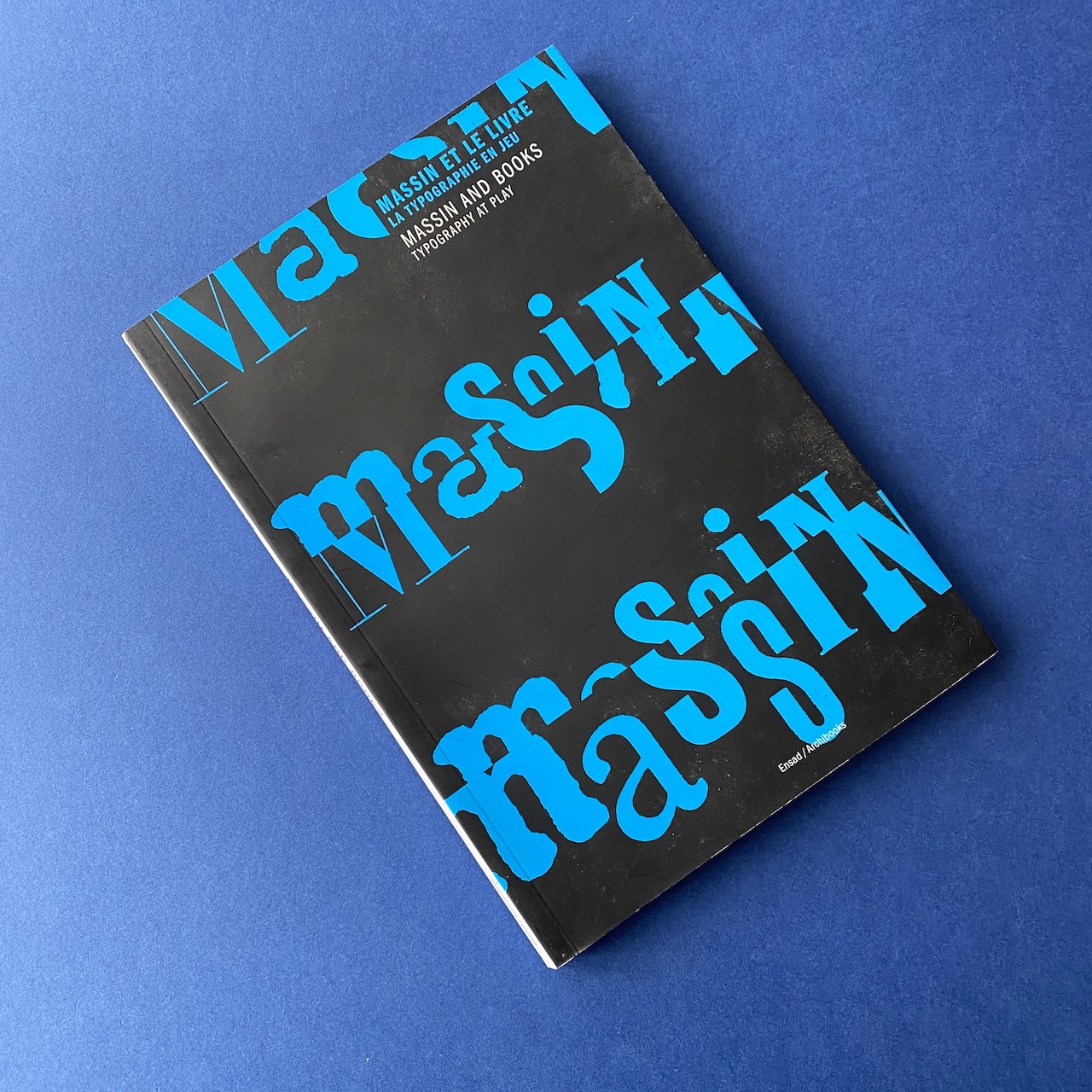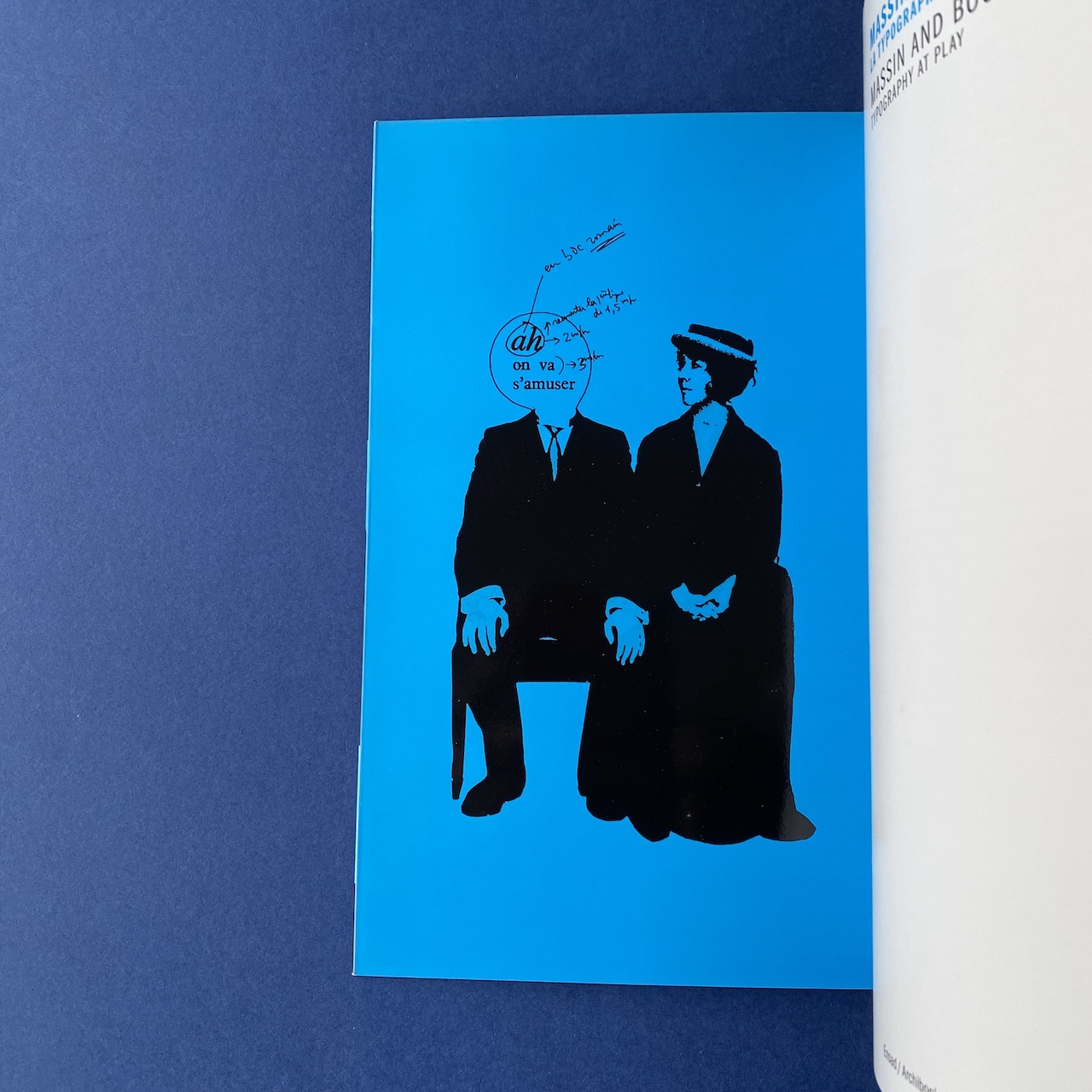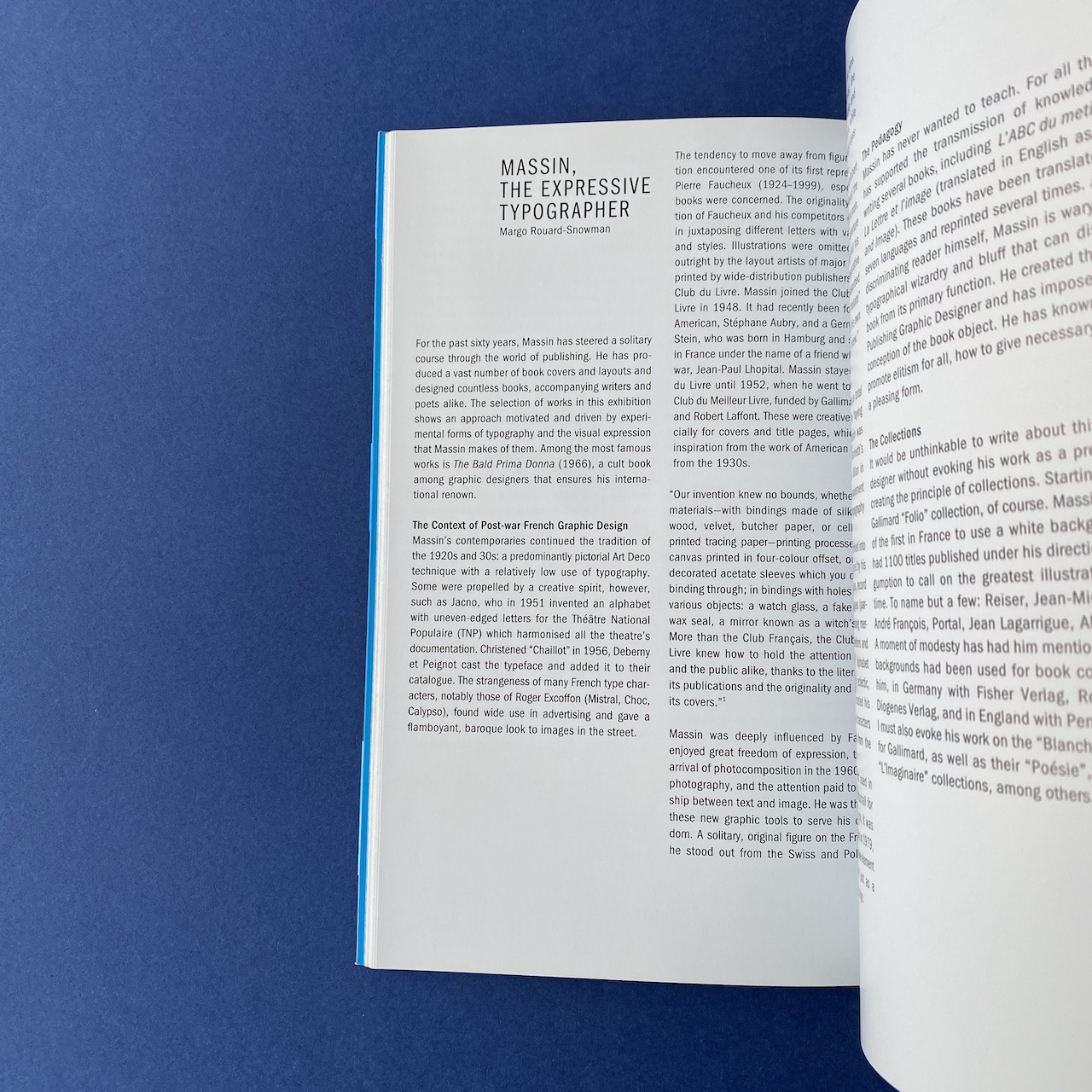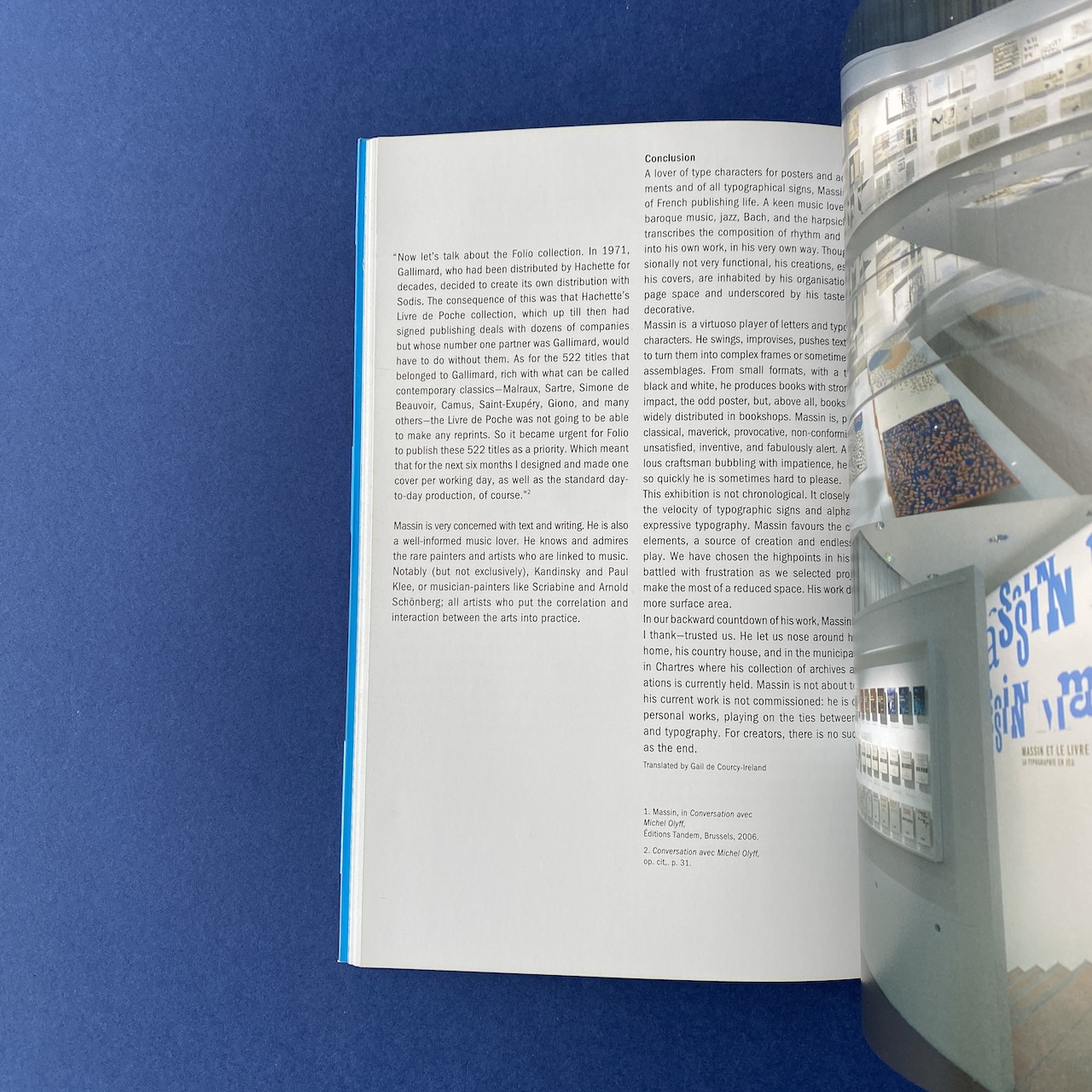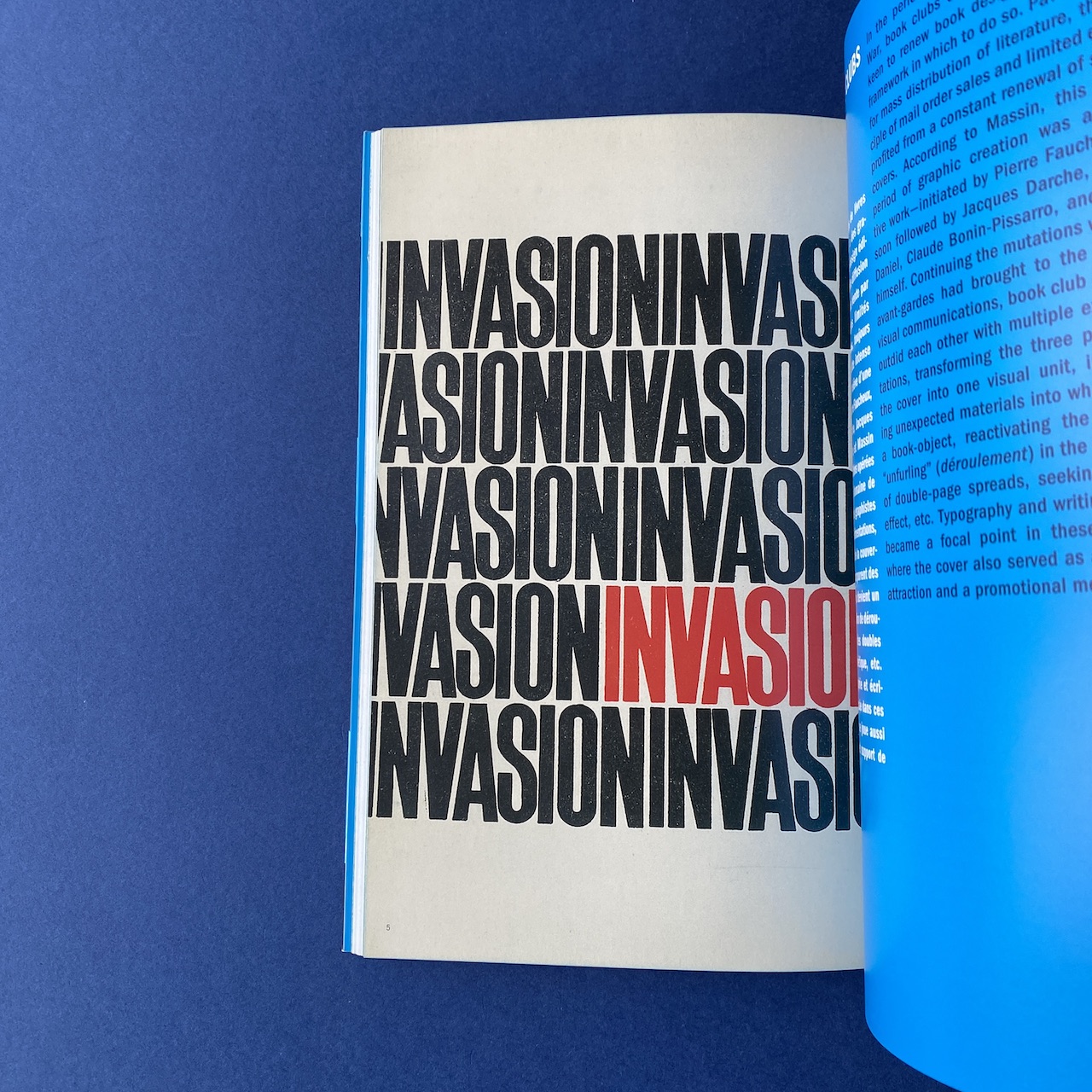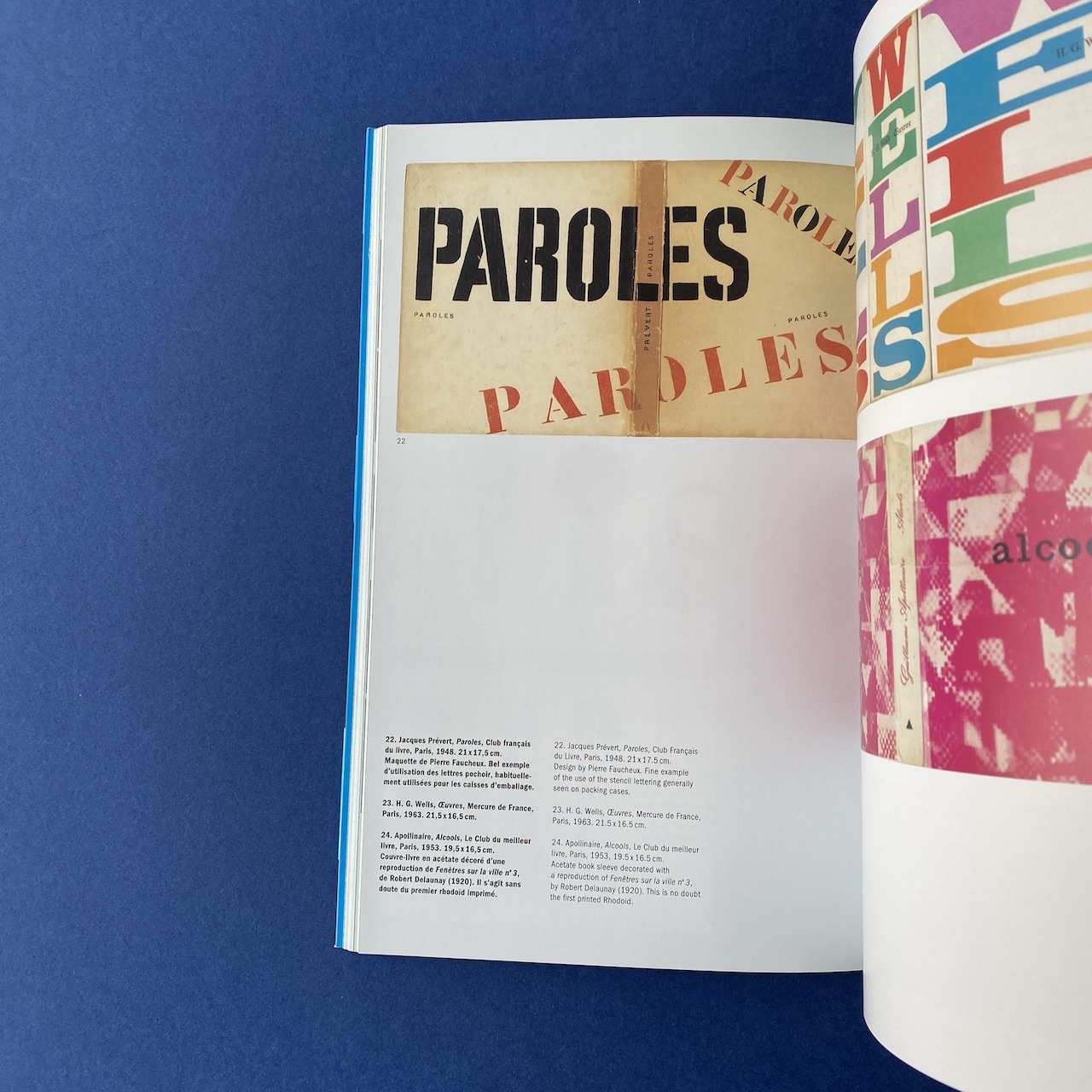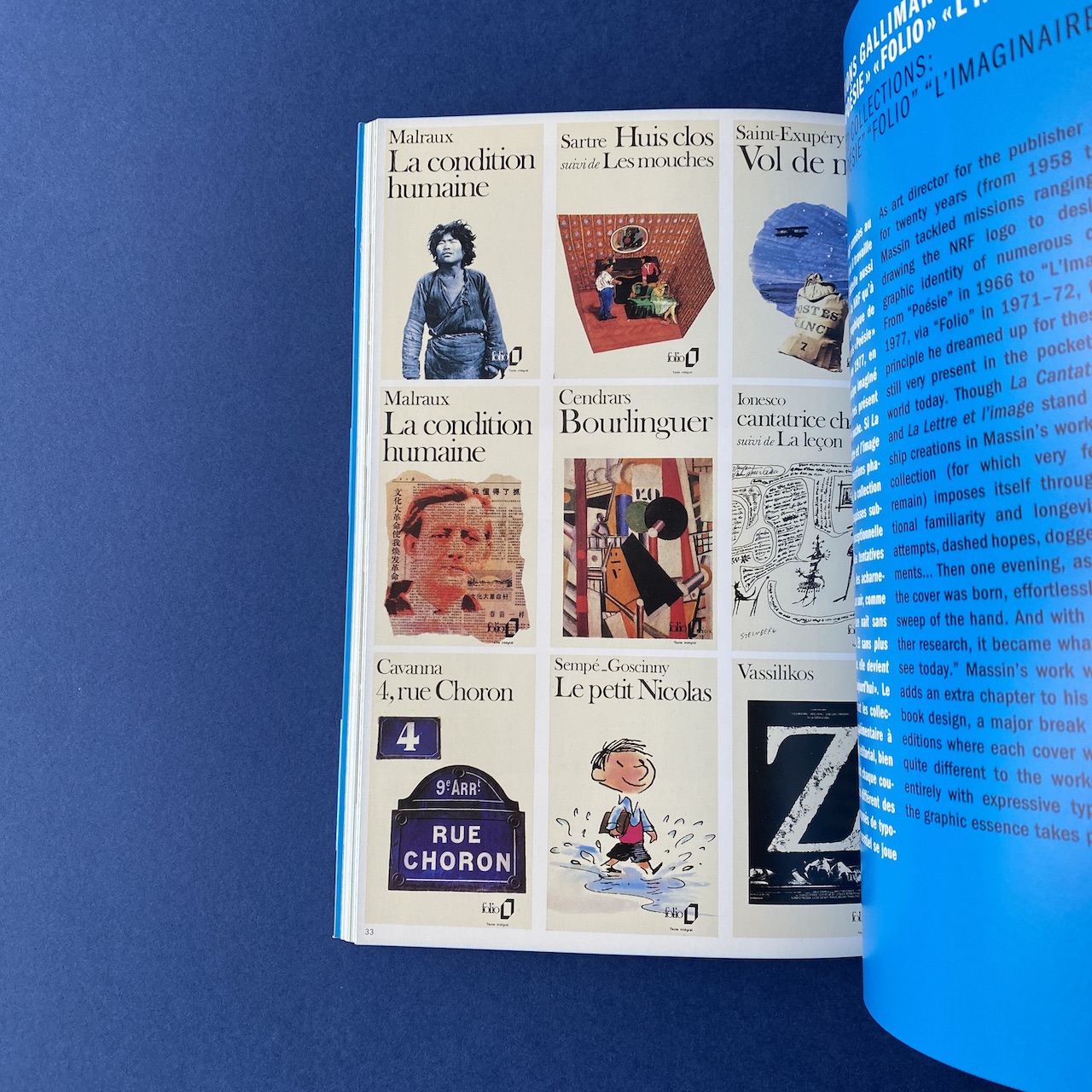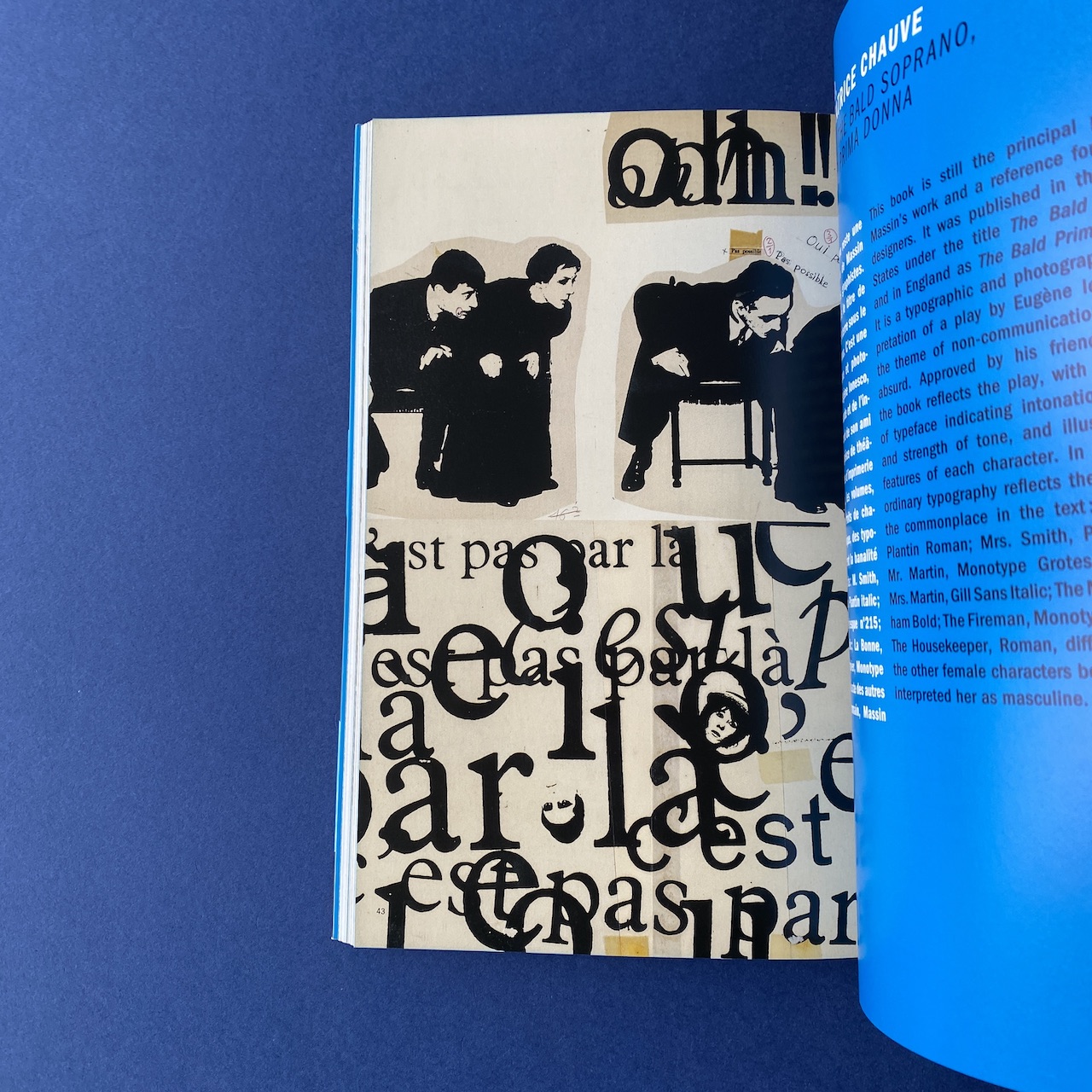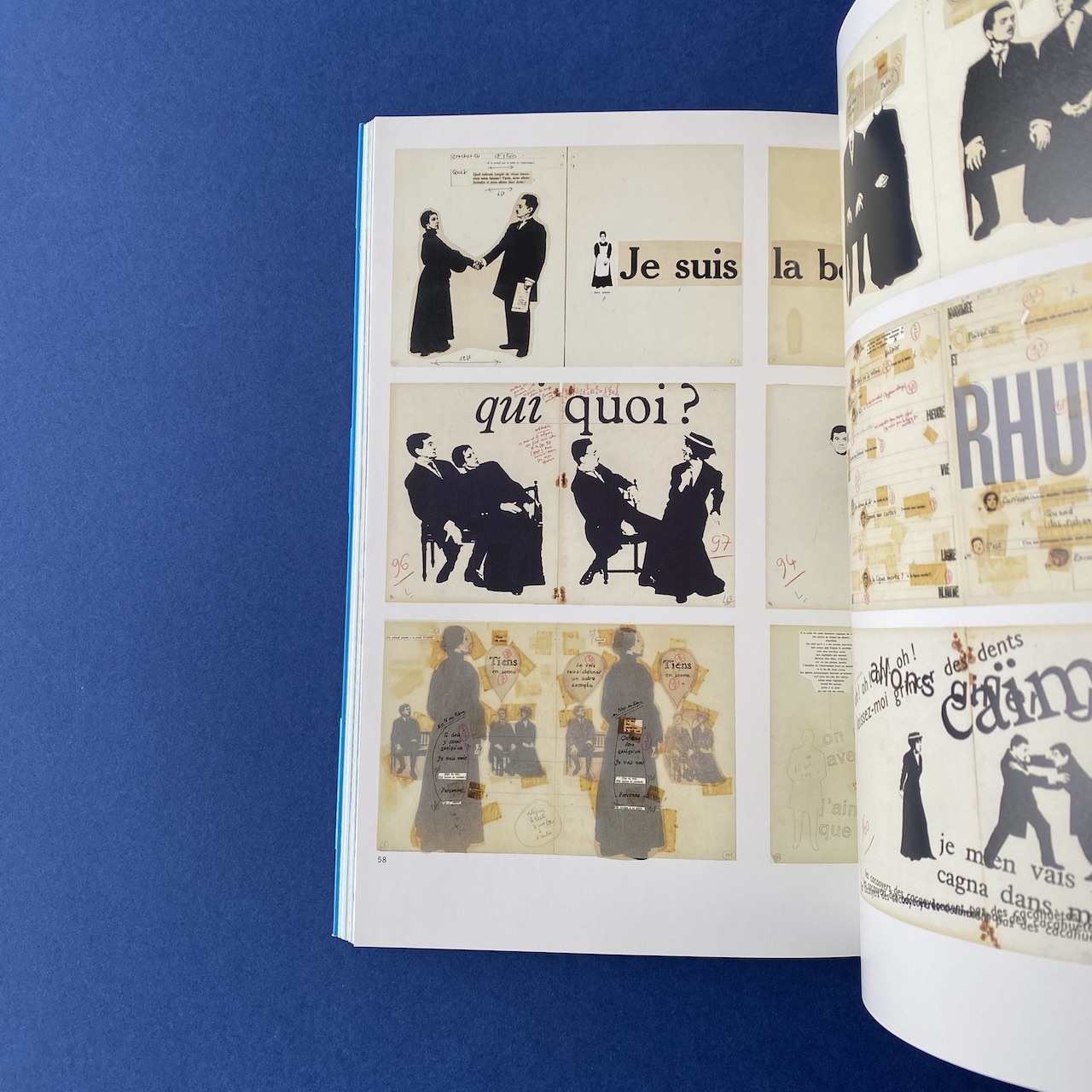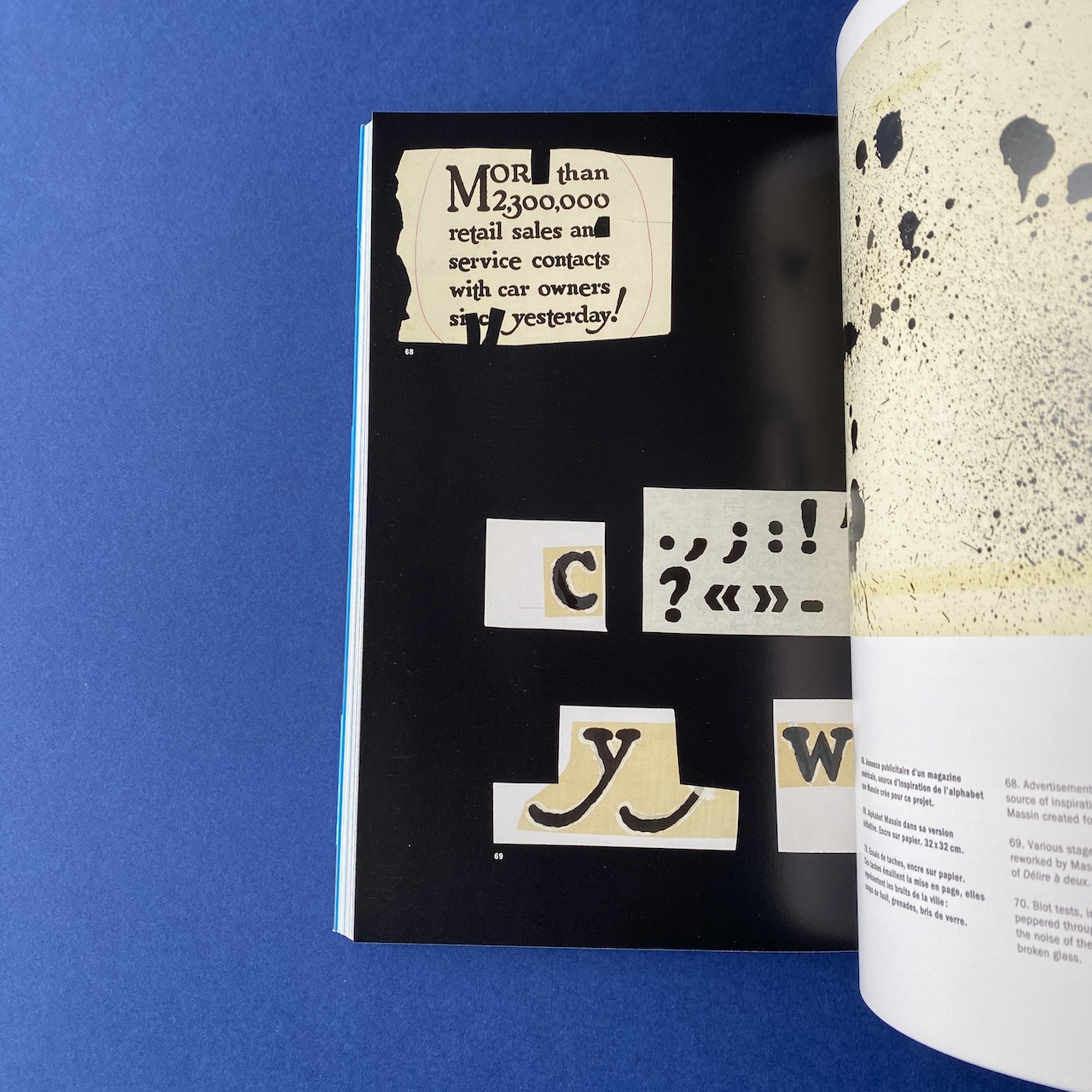
Massin et le livre, La typographie en jeu, Massin and Books, Typography at play, Ensad, 2007
Massin et le livre, La typographie en jeu, Massin and Books, Typography at play, Ensad, 2007.
“Graphic designer, typographer, journalist, editor, and author of numerous works, Massin is an unavoidable figure in the graphic arena of the second half of the twentieth century. Spanning the full diversity of Massin’s works, this catalogue reproduces a selection of the key creations in his career, from book club volumes to the inception of books composed entirely with expressive typography, or the graphic design of whole collections for leading Parisian publisher.”